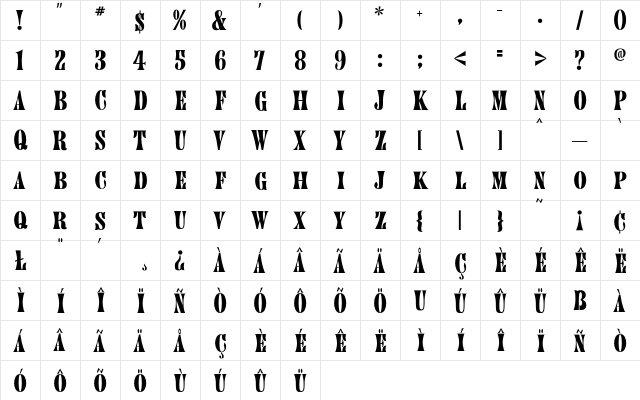
AIWood Painter Font Preview
AIWood Painter
Design Context for AIWood Typeface
AIWood taps into classic Western woodtype traditions — bold, characterful, and impossible to ignore.
Perfect for barbecue restaurants, country music branding, vintage poster design, and rustic packaging.
Font Pairing: Combine AIWood with a simple slab or neutral sans — period-accurate companions reinforce the vintage feel without competing for attention.
Pro Tip: Pair AIWood with aged textures or distressed backgrounds to amplify its vintage personality.